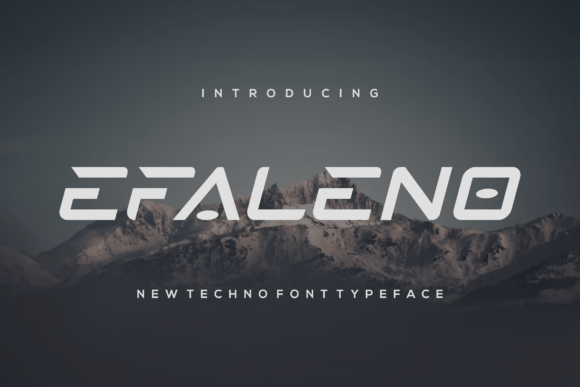
Welcome to the world of Efaleno, a font that radiates boldness, authenticity, and timeless beauty. This display font, crafted with precision and passion by kalingga.albert, is your gateway to creating a visual impact that leaves an indelible mark.
Efaleno's distinctive design exudes confidence and strength, making it the perfect choice for those seeking to make a statement. Its bold lines and authentic charm effortlessly elevate any project, from logos and branding to t-shirt printing and e-sports.
Step into a realm of creativity where Efaleno's versatility shines. Its wide range of applications is a testament to its adaptability and flair. Whether you're looking to design a captivating logo, create eye-catching t-shirt designs, or inject a touch of modern elegance into your e-sport ventures, Efaleno is your trusted companion.
Visualize your brand standing out with a logo that embodies boldness and sophistication. Efaleno's distinct character ensures that your company's identity is unmistakable, leaving a lasting impression on your audience.
Imagine your designs taking center stage with t-shirts that speak volumes. Efaleno's innate ability to command attention captures the essence of self-expression, allowing you to create t-shirts that resonate with both individuality and style.
Efaleno's versatility extends to the realm of e-sports, where dynamic visuals and captivating designs reign supreme. Unleash your creativity and design e-sport logos, streaming overlays, and team jerseys that exude energy and passion.
Efaleno is more than just a font; it's a catalyst for extraordinary visual experiences. Its boldness and authenticity extend beyond aesthetics, inspiring confidence and empowering you to make a statement that resonates with your audience.